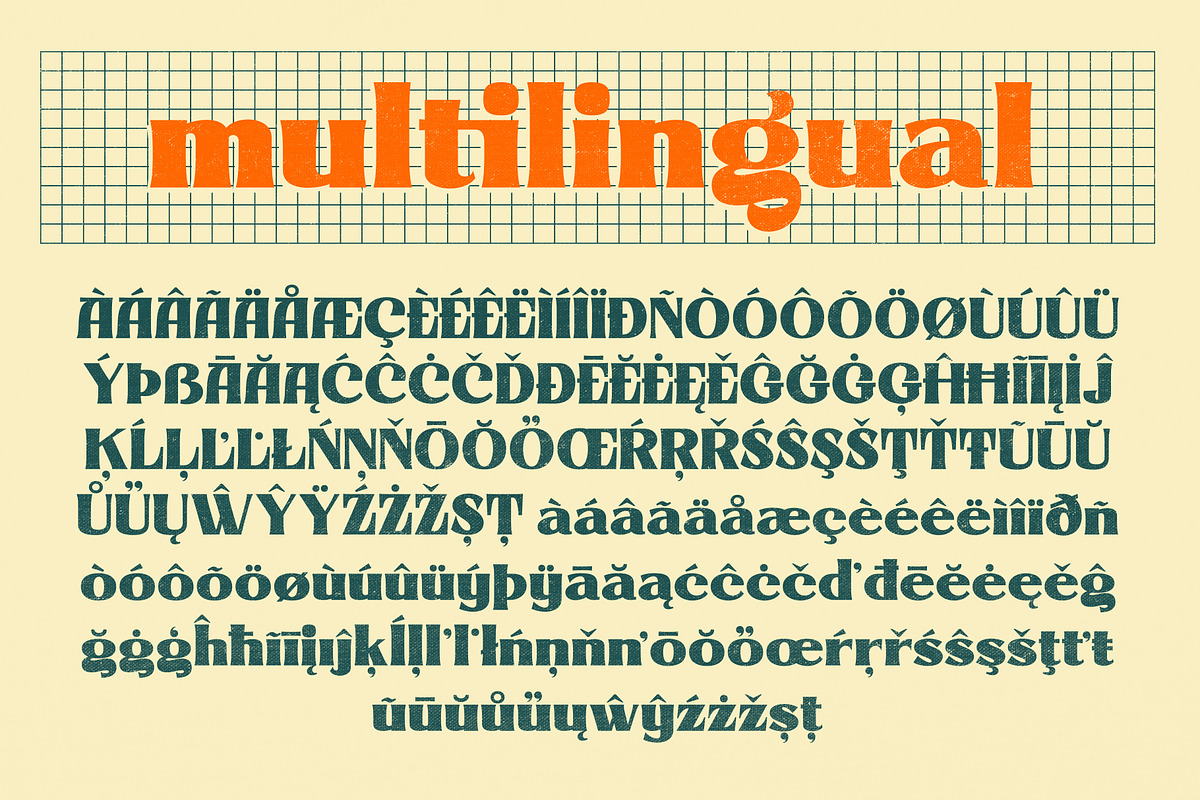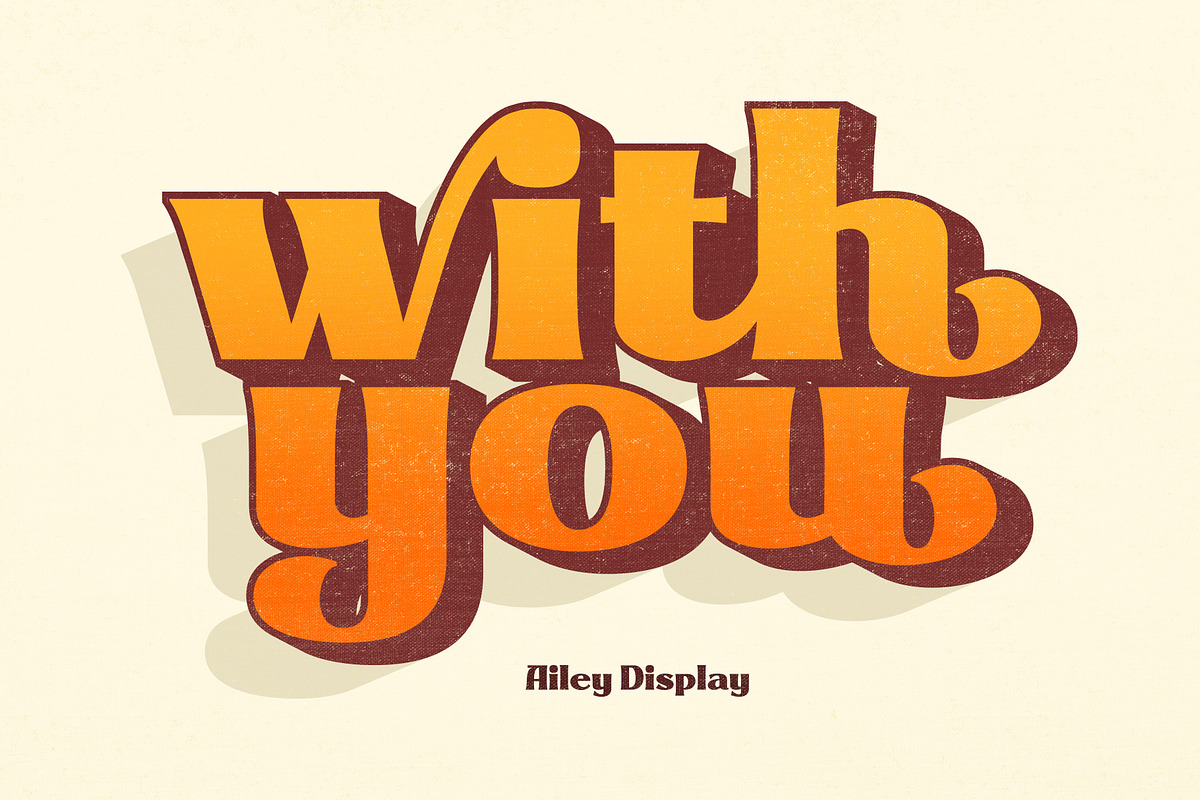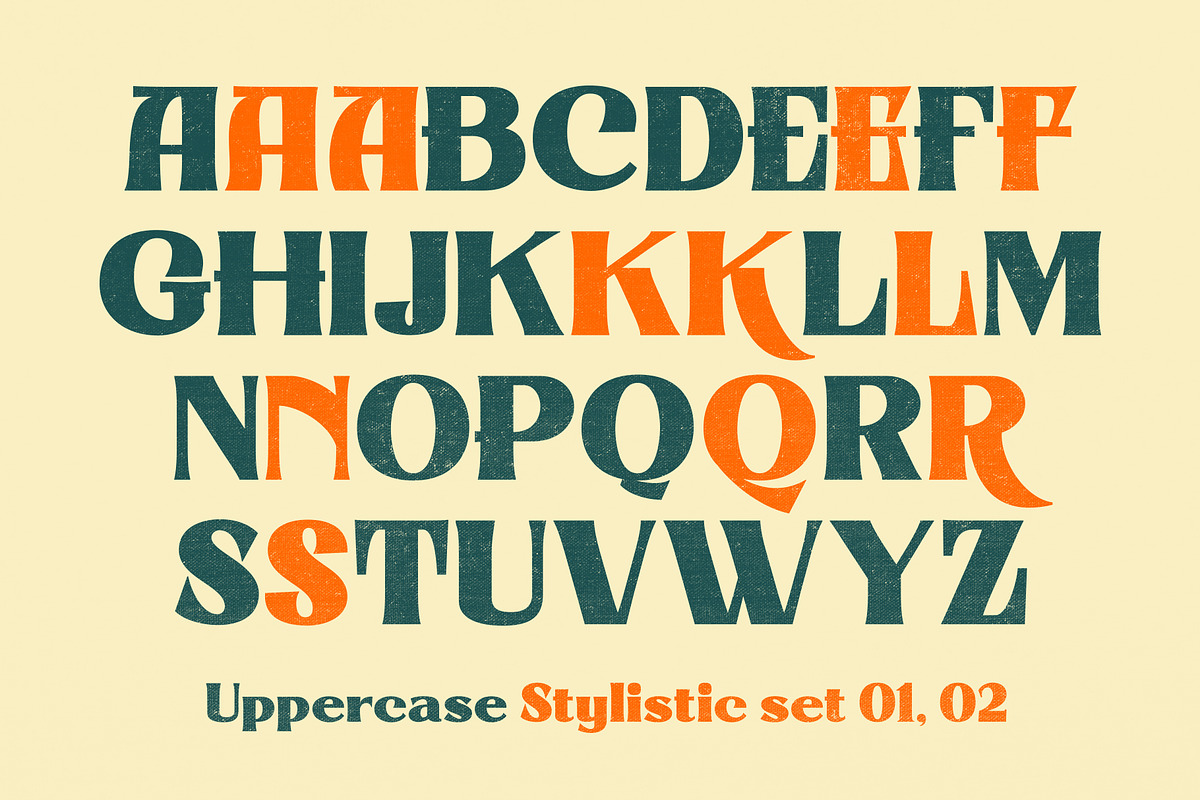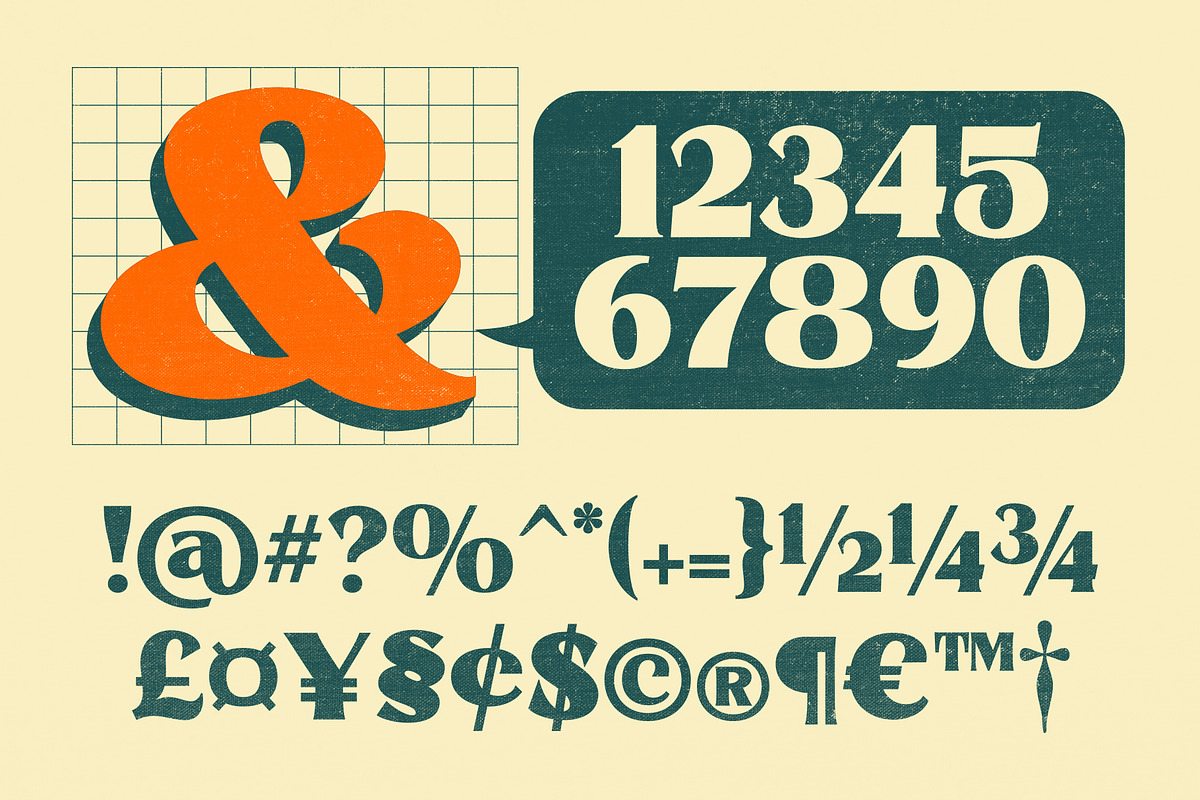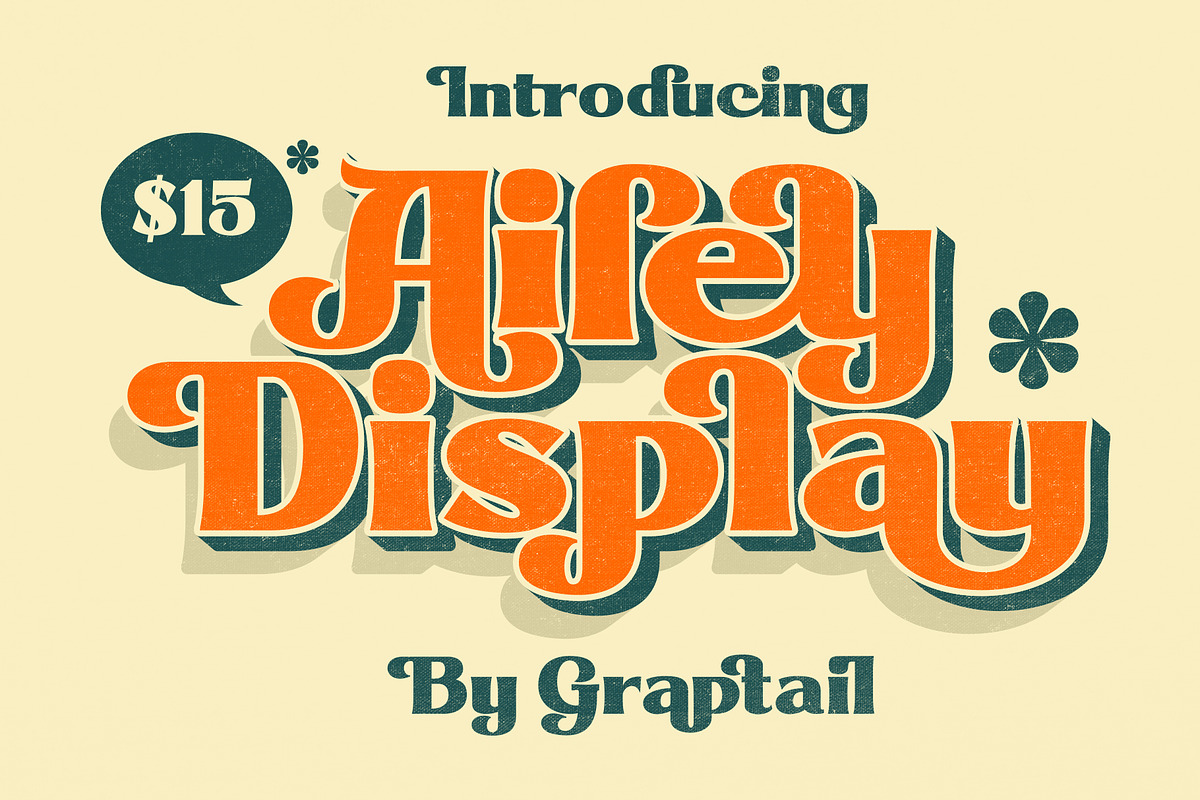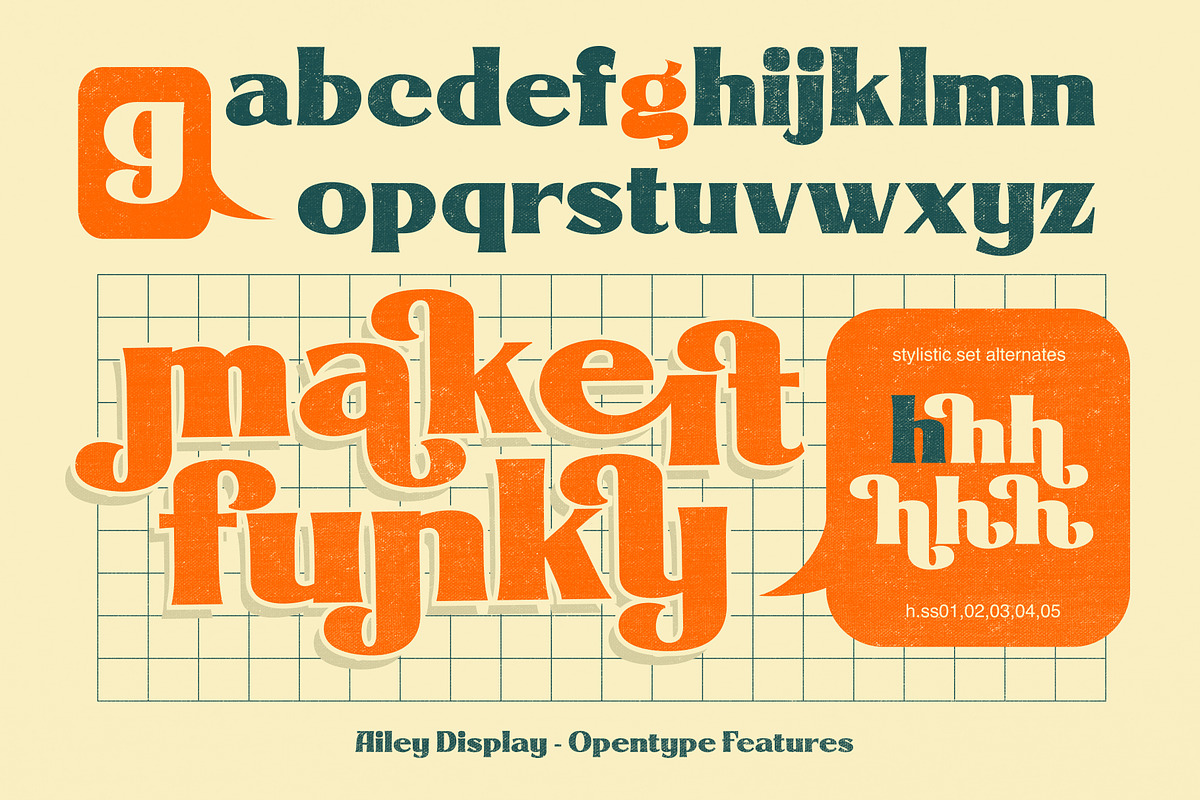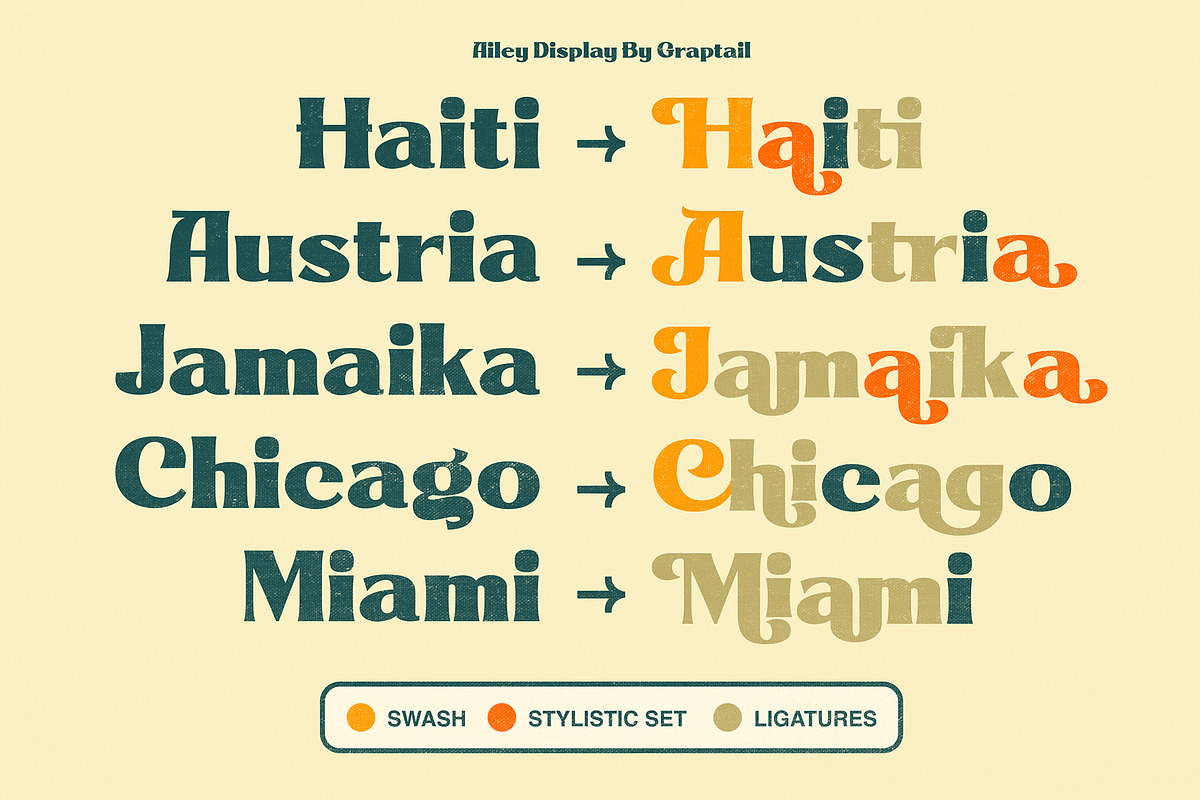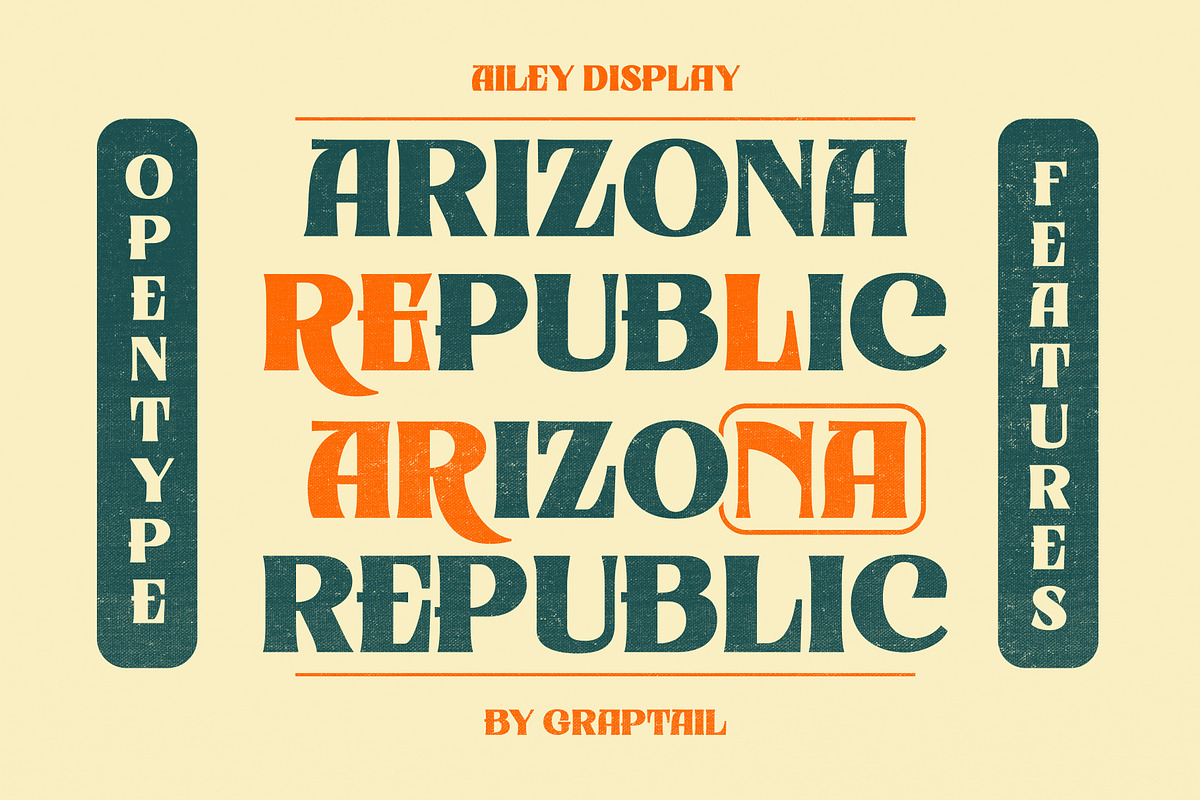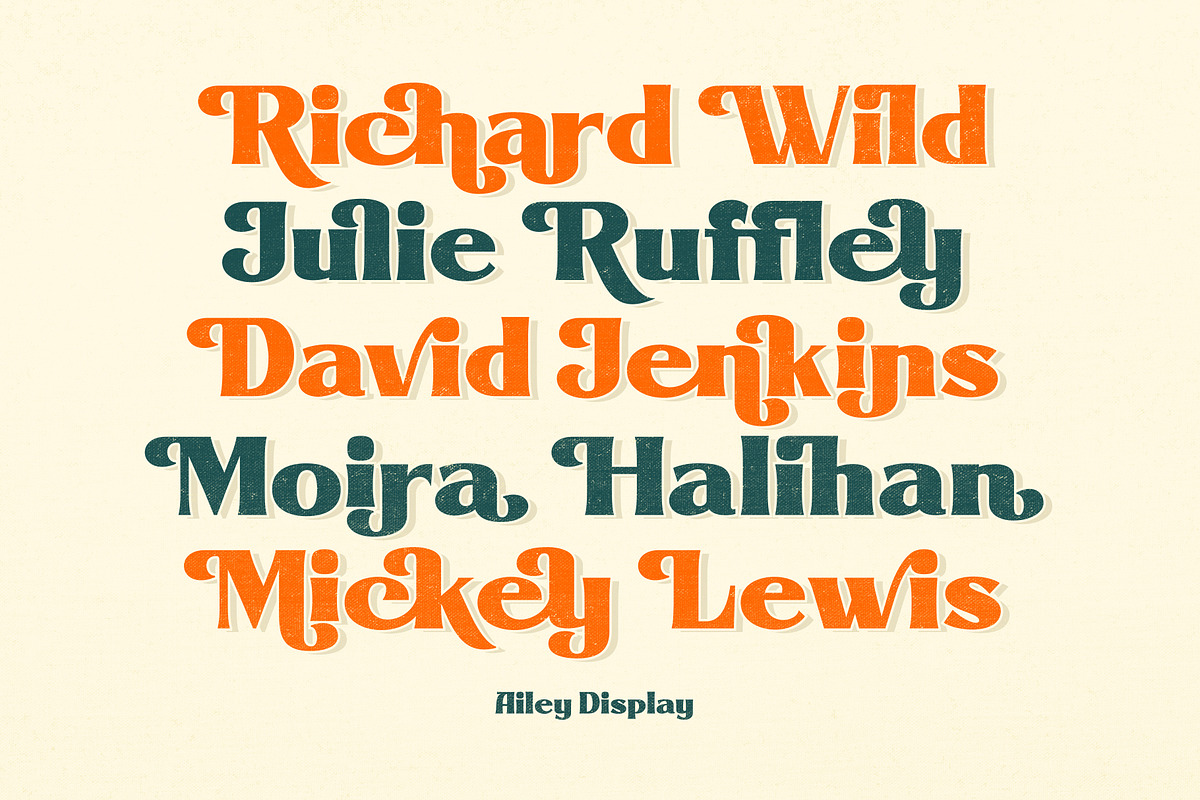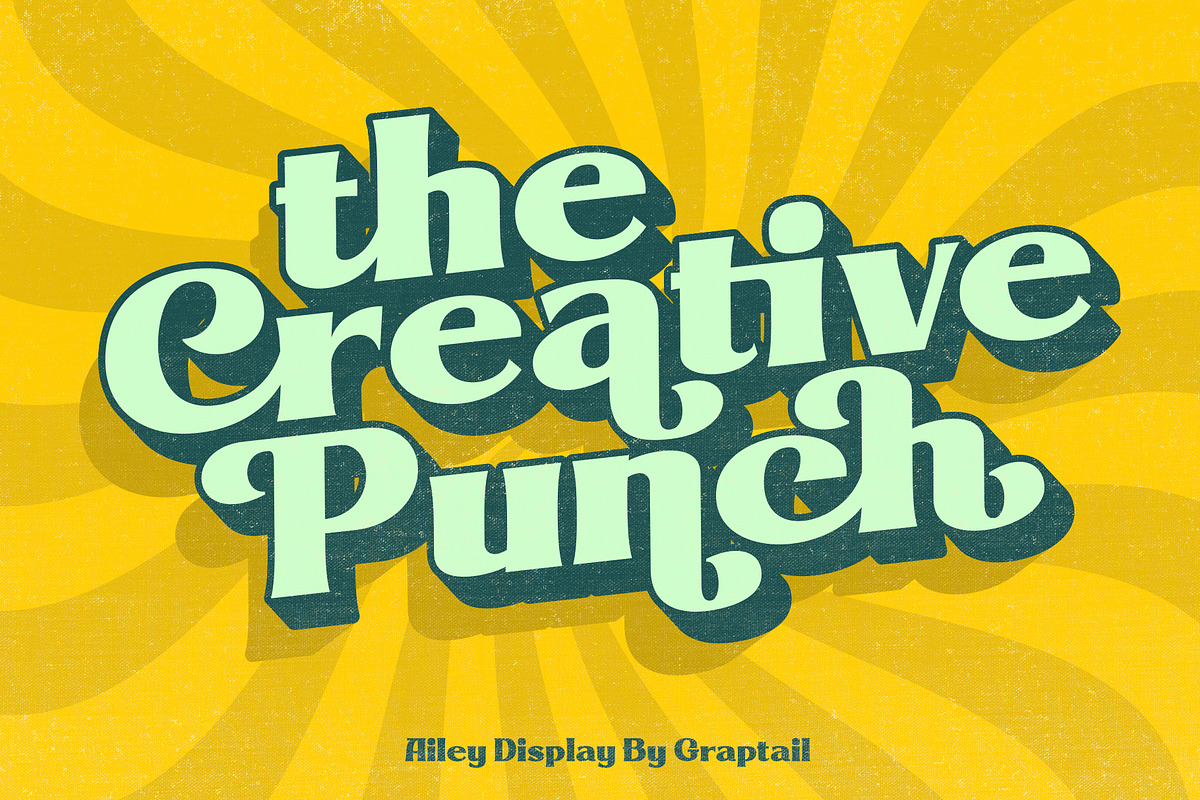
Ailey Display
Ailey Display is inspired by the work of charming lettering artists with a combination of Old Style Display Bold. Each letter is modified so that the distance, width and weight can give the beauty of the alternates given. A passionate curve gives a touch of beauty to this font.
- All Alternates
- Discretionary Ligatures
- Oldstyle Figures
- Lining Figures
- Localized Forms
- Superscript
- Fractions
- Ordinals